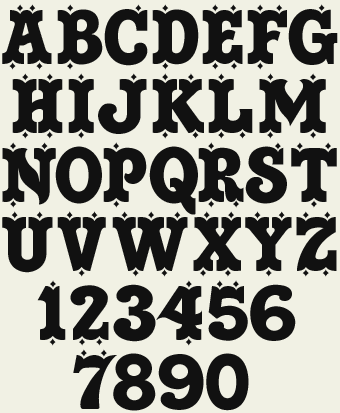
SADDLE WITH BROADWAY ELEMENTS |
| LHF Saddle by Noel Weber & Chuck Davis |
Saddle is a classic western style as only Noel Weber can do it. Easy to read with lots of personality. Features stylistic alternates that can also be accessed by typing the keys shown below. Includes 3 fonts: Regular, Fancy, and spurs.
Saddle Regular
Saddle Fancy
Saddle Spurs